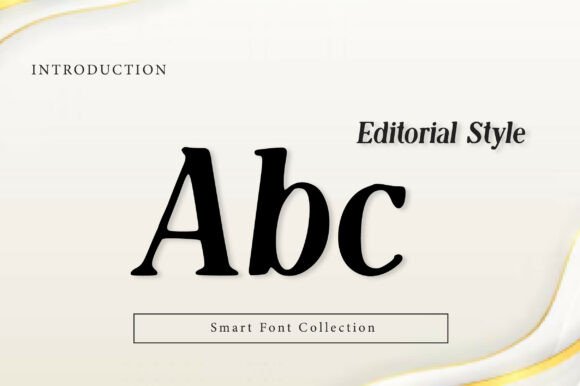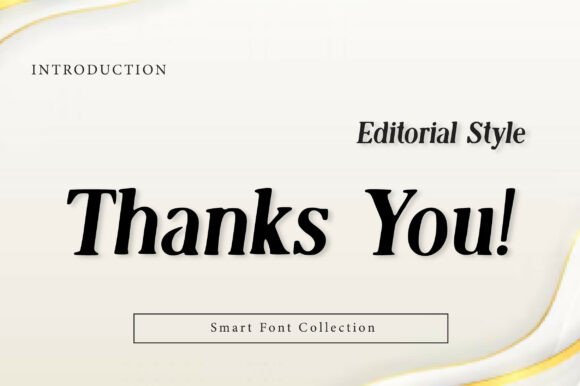
Introducing Editorial Style: The Ultimate Serif Display Font for Luxury Typography
In the world of typography, the right font can elevate your design from ordinary to extraordinary. For designers and crafters seeking a refined and elegant serif display font, Editorial Style is the perfect solution. Crafted for modern luxury and high-end editorial typography, this stunning typeface is designed to deliver a premium and sophisticated look that’s perfect for a variety of applications.
Clean Structure, High-Contrast Strokes, and Stylish Serif Details
Editorial Style boasts a clean structure, high-contrast strokes, and stylish serif details that set it apart from other serif fonts. Its elegant proportions and smooth serif shapes ensure excellent readability, making it ideal for use in a range of design projects. Whether you’re designing a modern magazine title, a luxury brand logo, or an upscale packaging label, Editorial Style adds a clean and fashionable touch to your design.
Inspired by Classic Magazine Headlines and Modern Luxury Branding
Editorial Style draws inspiration from classic magazine headlines and modern luxury branding, making it perfect for designers who want to create typography that feels professional, fashionable, and timeless. Its refined and elegant aesthetic is sure to impress, whether you’re designing for fashion, beauty, or editorial applications.
Ideal for a Variety of Design Applications
Editorial Style is a versatile font that’s suitable for a range of design applications, including:
- Fashion logos and branding
- Beauty branding and packaging
- Editorial layouts and magazine covers
- Book titles and covers
- Premium product packaging
Perfect for Display Typography
Editorial Style works best as a display font in headlines and titles, where its elegant proportions and smooth serif shapes can truly shine. However, it also looks beautiful in short text blocks, making it perfect for designers who want to add a touch of luxury to their typography.
Key Features of Editorial Style
So, what sets Editorial Style apart from other serif fonts? Here are some of its key features:
- Refined and elegant serif design
- Clean structure and high-contrast strokes
- Stylish serif details for added sophistication
- Elegant proportions and smooth serif shapes for excellent readability
- Ideal for use in headlines, titles, and short text blocks
- Perfect for fashion, beauty, editorial, and luxury branding applications
Why Choose Editorial Style?
With so many fonts to choose from, why should you choose Editorial Style for your next design project? Here are just a few reasons:
- Timeless aesthetic: Editorial Style has a timeless aesthetic that’s sure to remain stylish for years to come.
- Versatility: This font is suitable for a range of design applications, from fashion logos to editorial layouts.
- Readability: Editorial Style’s elegant proportions and smooth serif shapes ensure excellent readability, even in short text blocks.
- Sophistication: This font adds a touch of sophistication and luxury to any design project.
In conclusion, Editorial Style is a stunning serif display font that’s perfect for designers and crafters seeking a refined and elegant typography solution. With its clean structure, high-contrast strokes, and stylish serif details, this font delivers a premium and sophisticated look that’s sure to impress. Whether you’re designing a modern magazine title, a luxury brand logo, or an upscale packaging label, Editorial Style is the perfect choice.